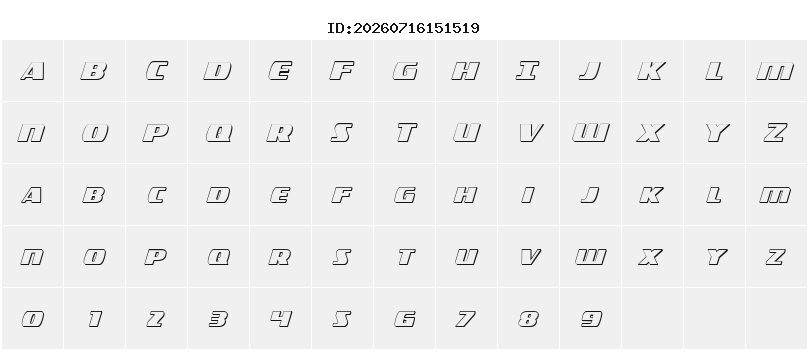
Americorps 3D Condensed Preview
• Font Name: Americorps 3D Condensed
• Font Style: Condensed
• Full Font Name: Americorps 3D Condensed
About Americorps 3D Condensed.ttf
Americorps 3D Condensed.ttf is a modern, elegant sans-serif font designed for ultimate readability and visual harmony. Perfect for branding, headlines, web design, and print materials.